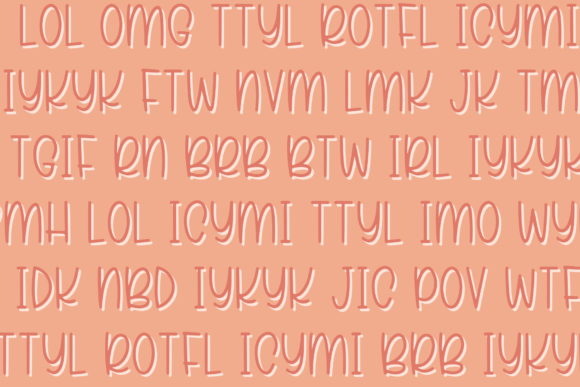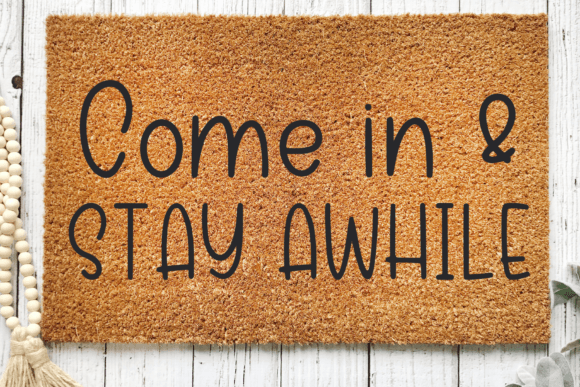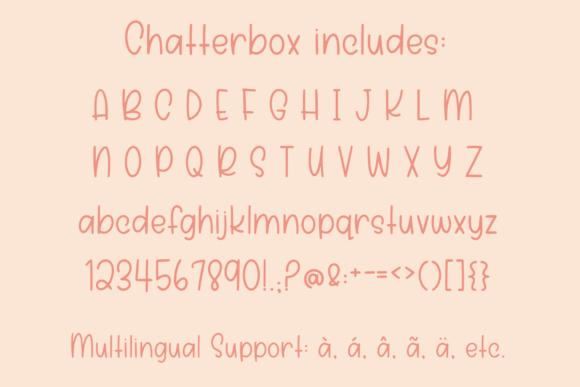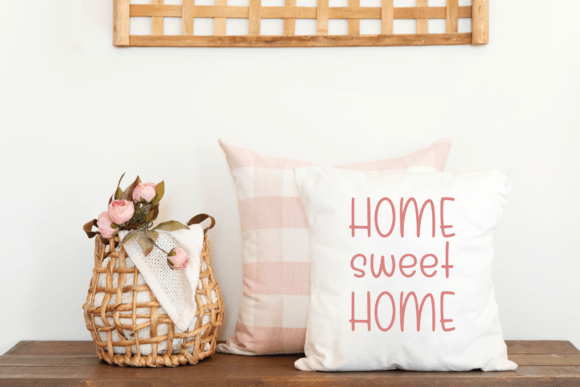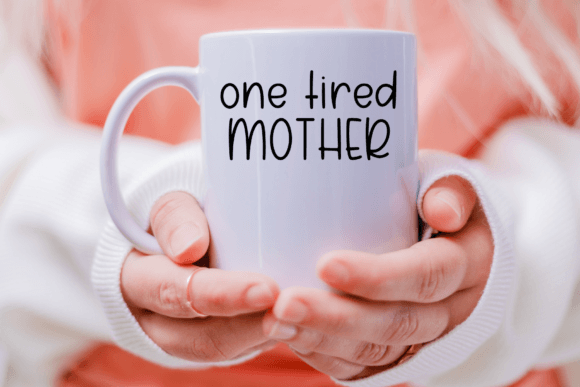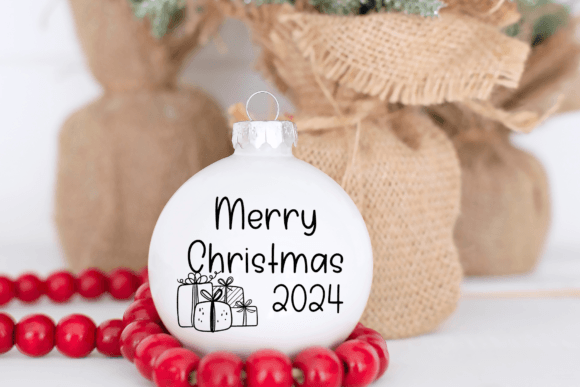
Introducing Chatterbox Font: The Playful Handwritten Font for Cricut
I’ll never forget the time I was working on a custom birthday card for a friend’s kid, and I just couldn’t find the right font to bring the design to life. The project required a playful, whimsical touch, but every font I tried seemed either too boring or too over-the-top. That’s when I stumbled upon the Chatterbox handwritten font for Cricut, and it was love at first sight! 💕
With its charming and fun handwriting style, Chatterbox adds a touch of personality to any project. Whether you’re crafting cards, journaling, or designing SVG files, this font is a must-have for craft enthusiasts and designers alike. In this article, we’ll dive into the world of Chatterbox, exploring its features, how to use it, and what makes it so special.
An Honest Review of Chatterbox Font
What I Love About Chatterbox ✨
- Playful and fun handwriting style that’s perfect for creative projects 🎉
- Unique and charming, adding a touch of whimsy to any design 🌸
- Works beautifully with Cricut designs, making it a must-have for craft enthusiasts 🛠️
- Easy to read and understand, even in smaller font sizes 📚
- Supports OpenType features, glyphs, and stylistic alternates for added versatility 🌈
While Chatterbox is an amazing font, there are a few things to keep in mind:
- Some characters may not work well in very small font sizes (less than 10pt) 🔍
- Limited language support, so it’s best to use it for English or similar languages only 🇺🇸
- No built-in bold or italic styles, but you can use font variations or pair it with other fonts for contrast 📊
The Backstory Behind Chatterbox
Chatterbox was designed with the intention of creating a playful, fun font that captures the spirit of carefree conversation. The designer wanted to create a font that would add a touch of whimsy and personality to any project, making it perfect for craft enthusiasts and designers alike. With its charming handwriting style and support for OpenType features, glyphs, and stylistic alternates, Chatterbox is sure to bring your creations to life! 🌟
Q: What is the Chatterbox font best used for?
A: Chatterbox is perfect for creative projects that require a playful, whimsical touch, such as custom cards, journaling, and designing SVG files for Cricut. 🎨
Q: Can I use Chatterbox with my Cricut machine?
A: Absolutely! Chatterbox is designed specifically for use with Cricut designs, making it a must-have for craft enthusiasts. 🛠️